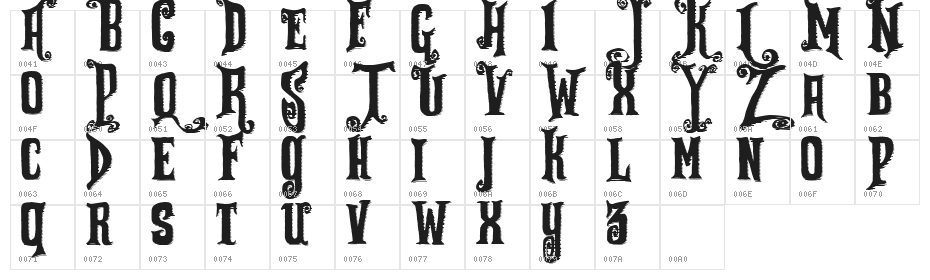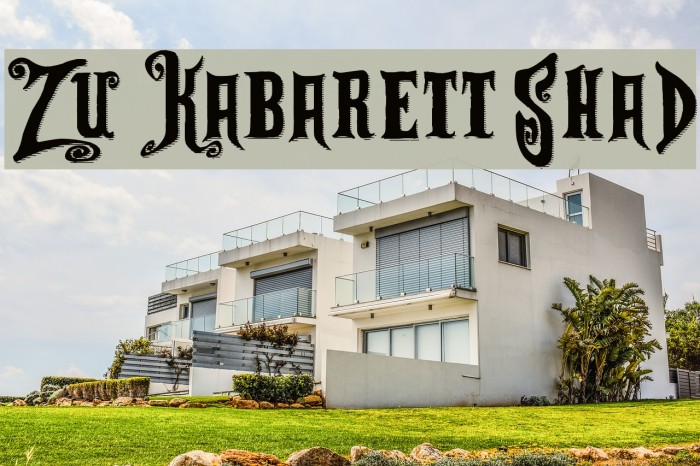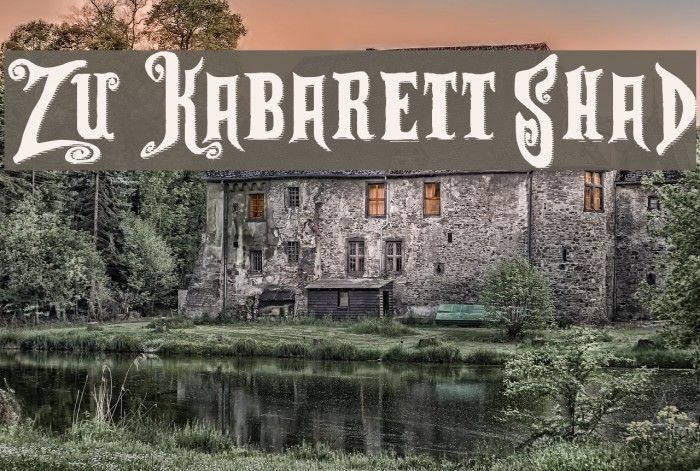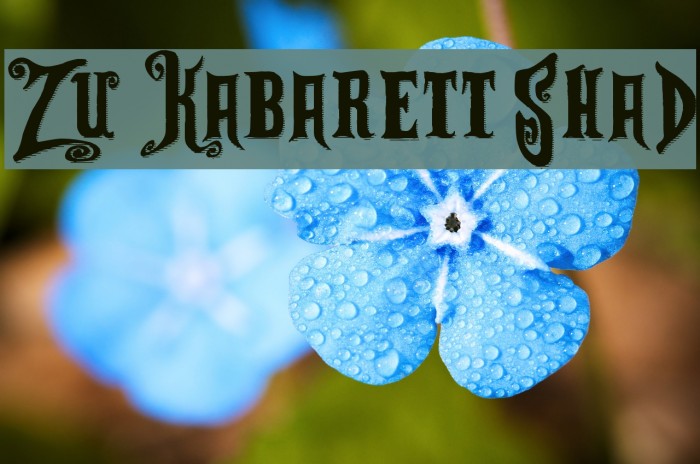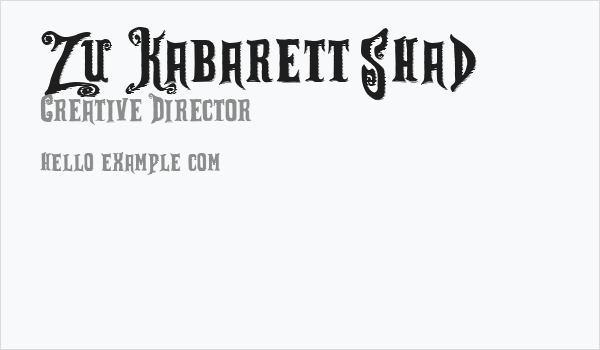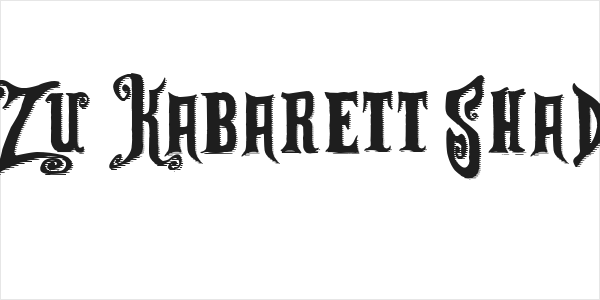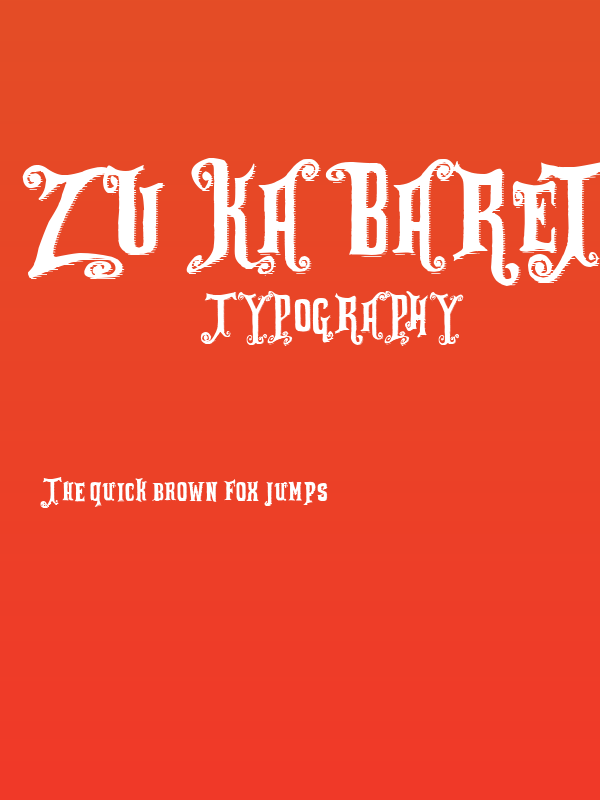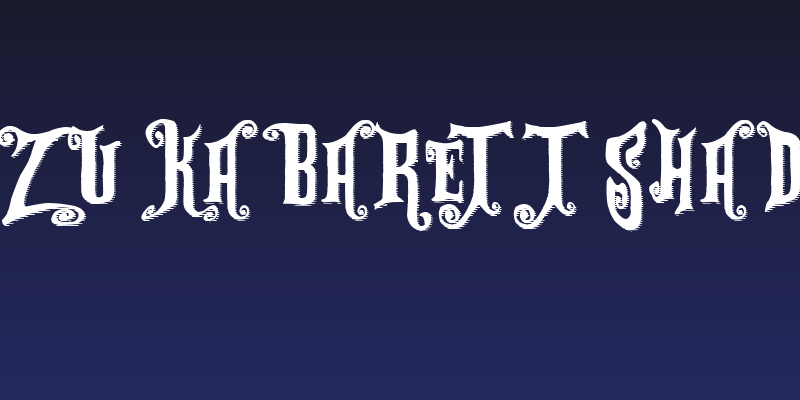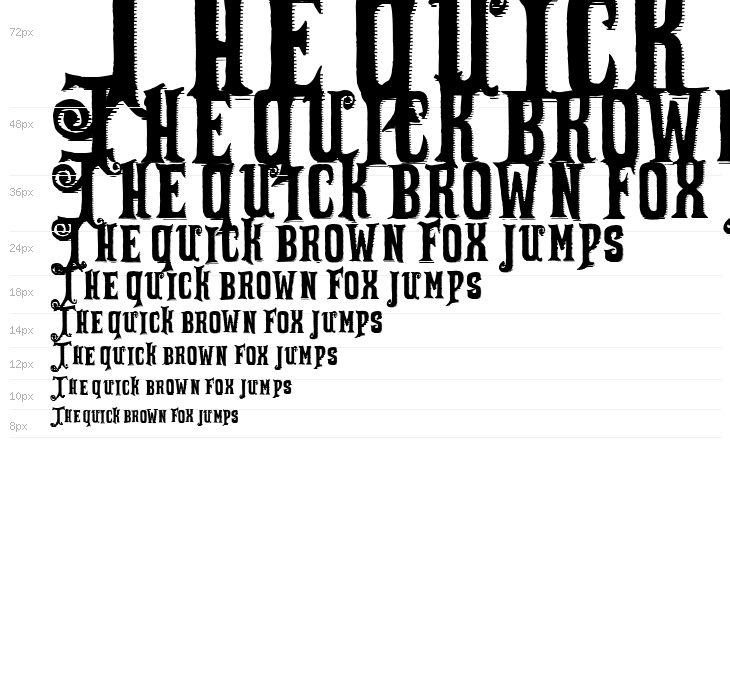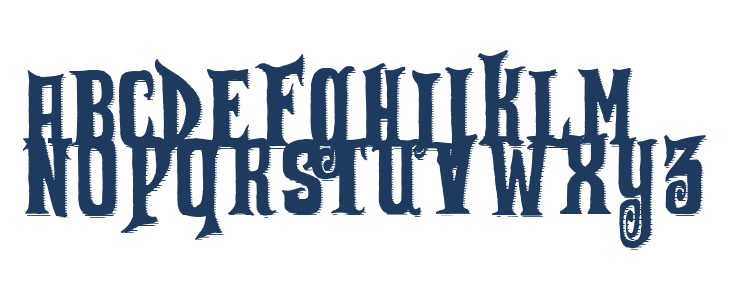
Zu Kabarett Shad Font
Zu Kabarett Shad Description
This font features an elaborate and decorative style, characterized by its ornate and whimsical design elements. Each letter is adorned with intricate curls and flourishes, giving it a theatrical and vintage feel. The uppercase and lowercase letters maintain a consistent decorative theme, with exaggerated serifs and unique embellishments that make each character stand out. The numbers and special characters follow the same ornate style, ensuring a cohesive look across all glyphs. This font is ideal for projects that require a touch of drama and elegance, such as posters, invitations, and theatrical productions.
| Proposed Projects | Ideal for theatrical posters, vintage-themed invitations, and decorative signage. |